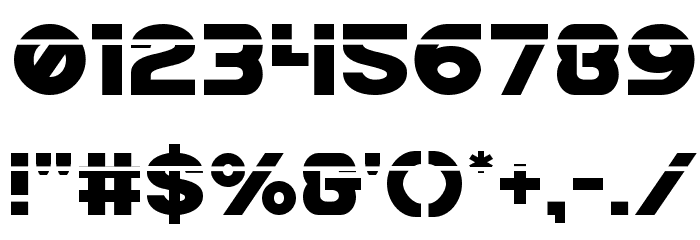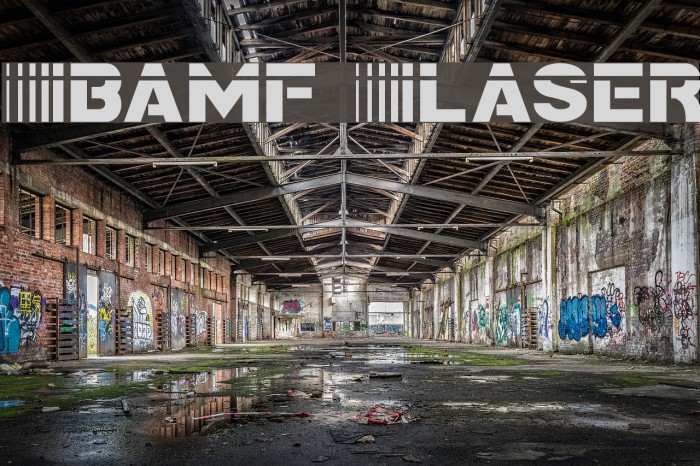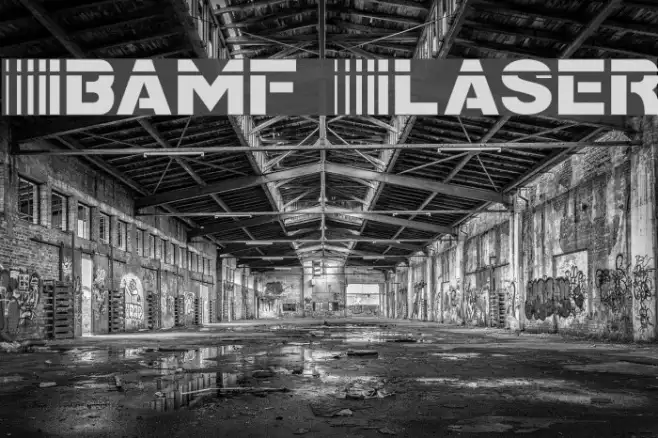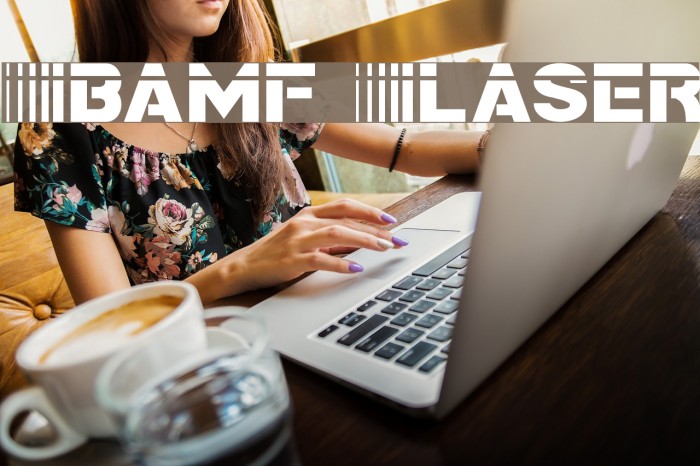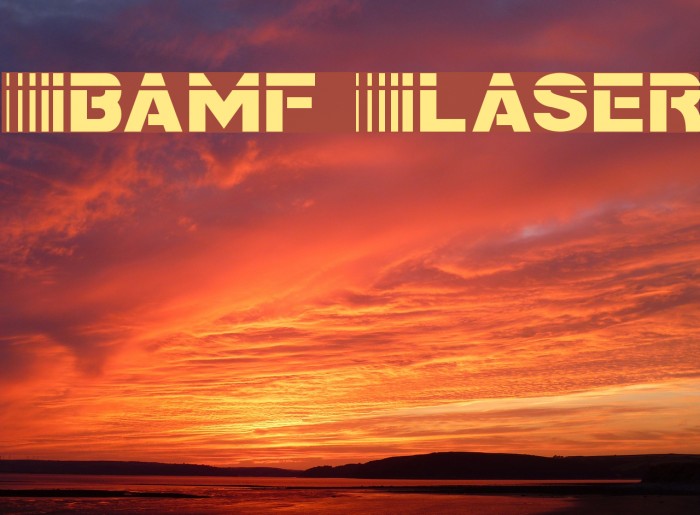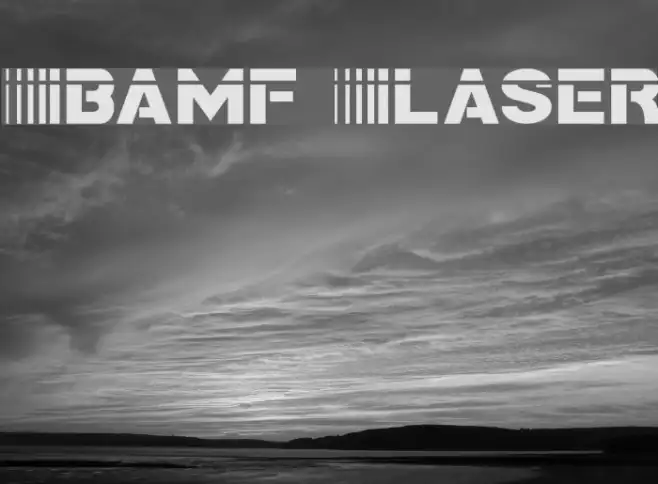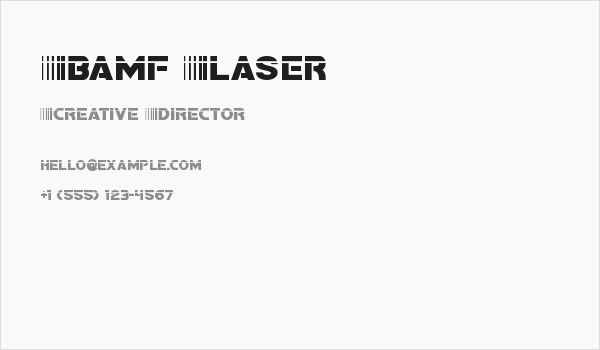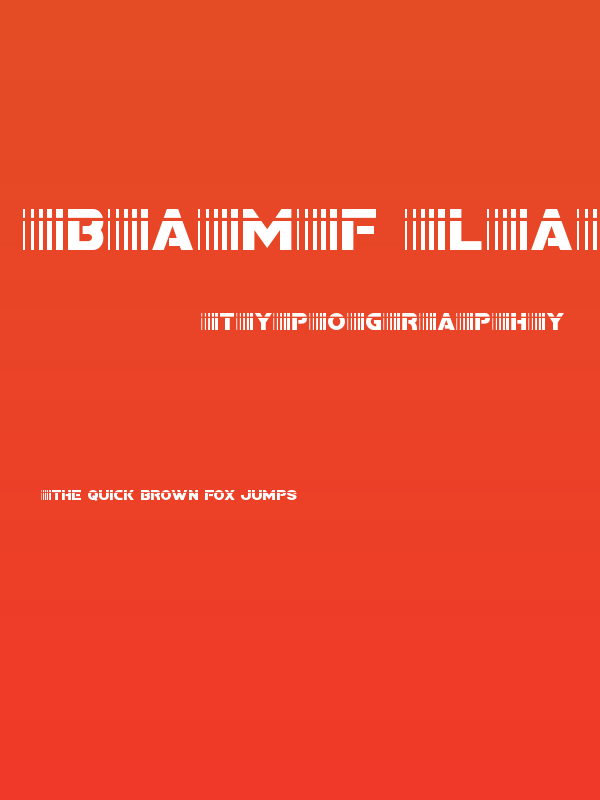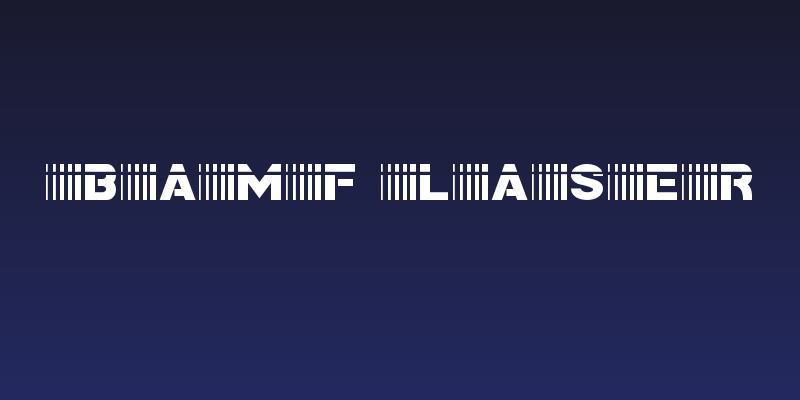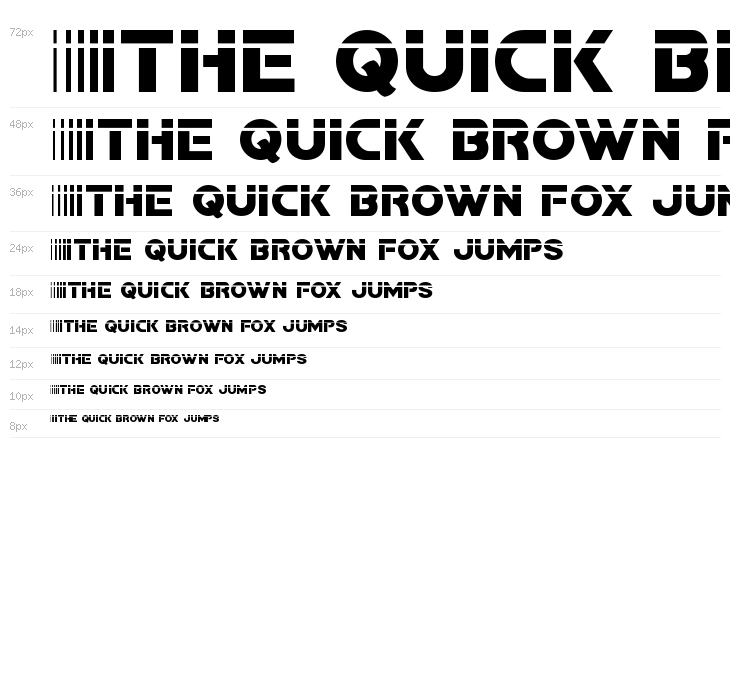
Bamf Laser Font
Bamf Laser Description
This font features a bold, geometric design with a futuristic and industrial feel. The characters are constructed with solid, block-like shapes, incorporating sharp angles and straight lines. The uppercase letters are particularly striking, with a stencil-like appearance that suggests a sense of movement and dynamism. The numbers and special characters maintain this cohesive style, making the font suitable for impactful and eye-catching designs. Its unique style is ideal for projects that require a modern and edgy aesthetic.
| Proposed Projects | Ideal for branding, posters, video game graphics, and sci-fi themed projects. |